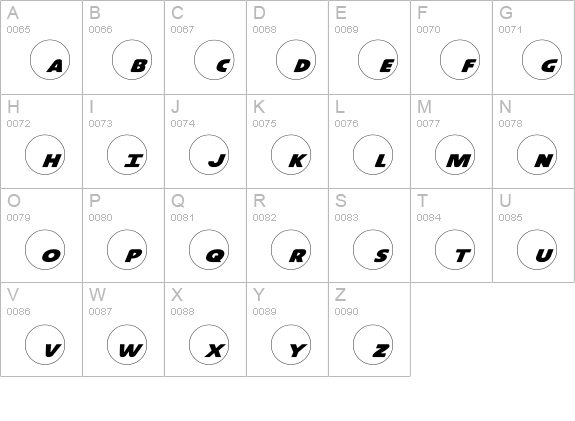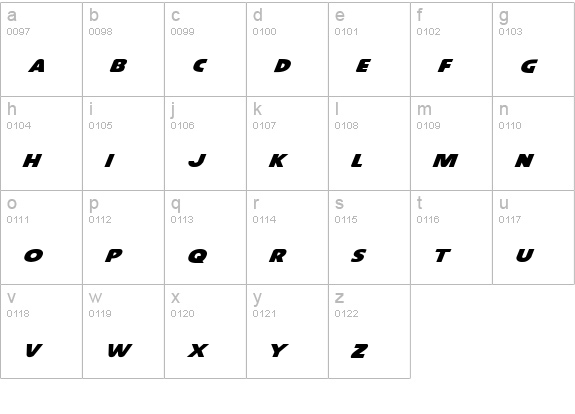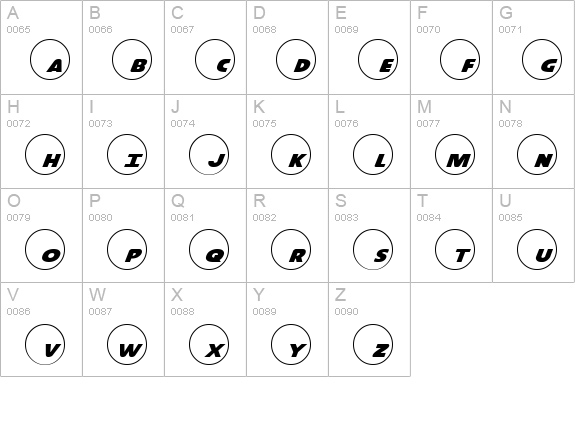
Dot.com Pro Font Details
Introducing Dot.com Pro font, a sleek and modern typeface perfect for digital projects and online branding. With its clean lines and contemporary style, Dot.com Pro exudes professionalism and sophistication. This versatile font is ideal for websites, digital marketing materials, and social media graphics. What sets Dot.com Pro apart is that it is available for free download at FontsMarket.com. This means you can elevate your online presence without breaking the bank. Whether you're a web designer, digital marketer, or content creator, Dot.com Pro is a valuable addition to your font library. Download it today and start creating stunning designs that leave a lasting impression.